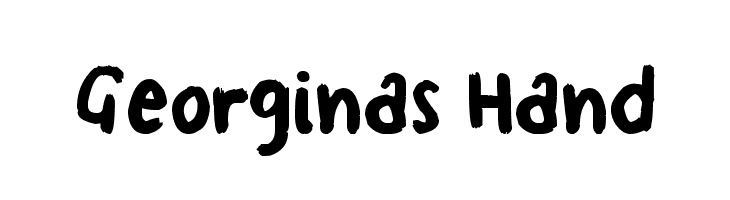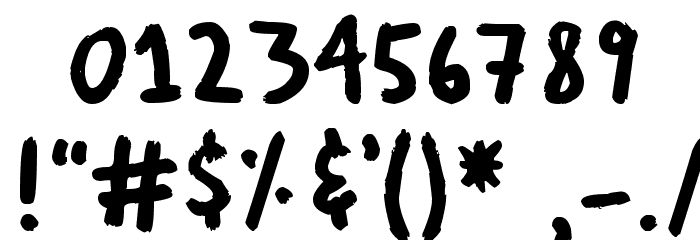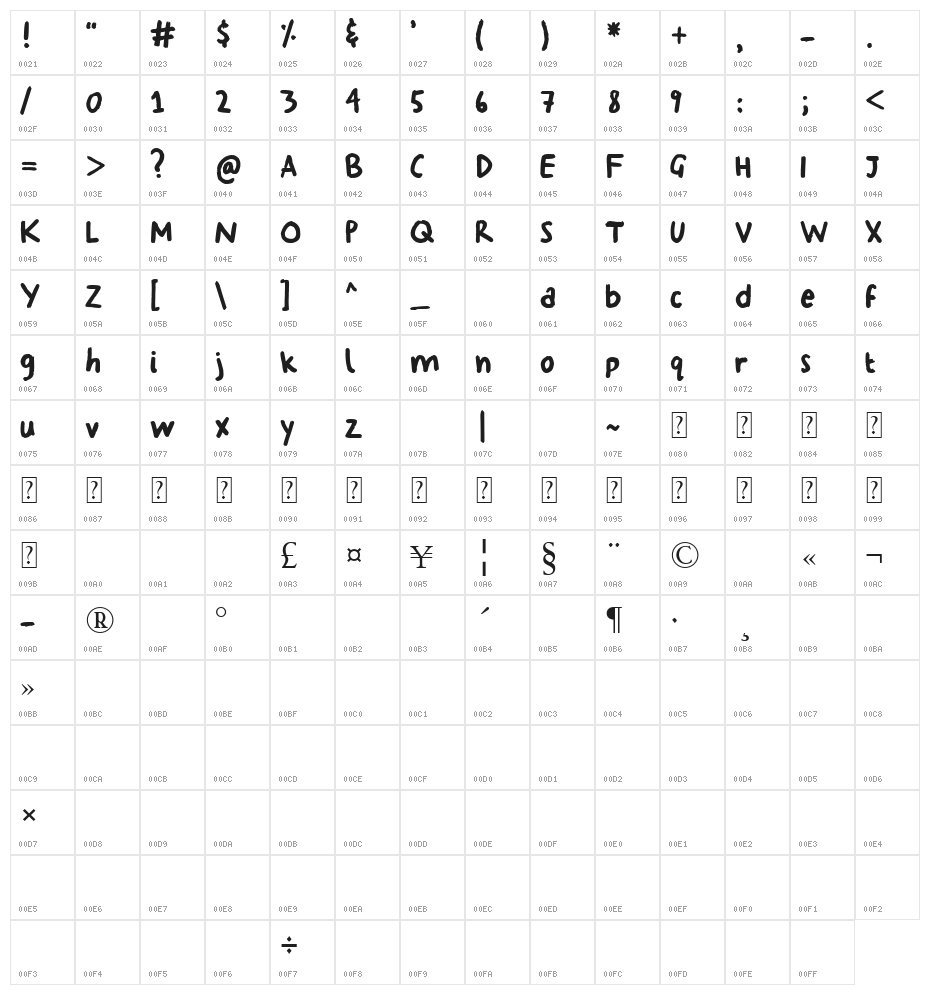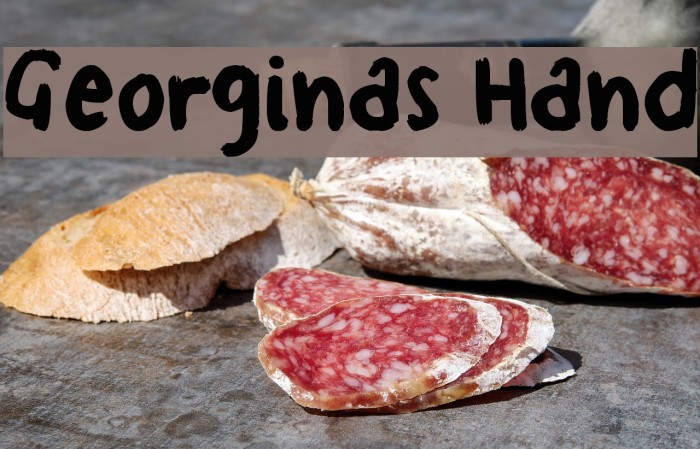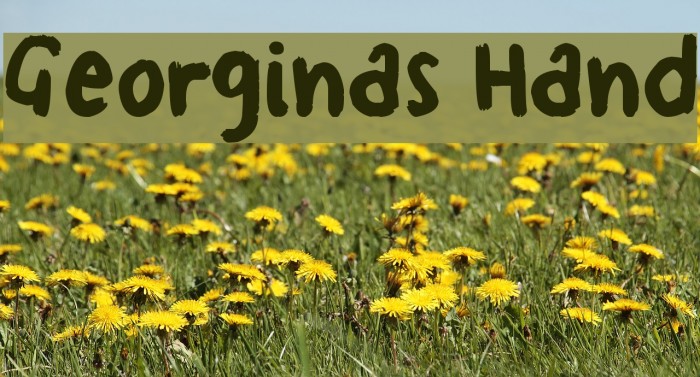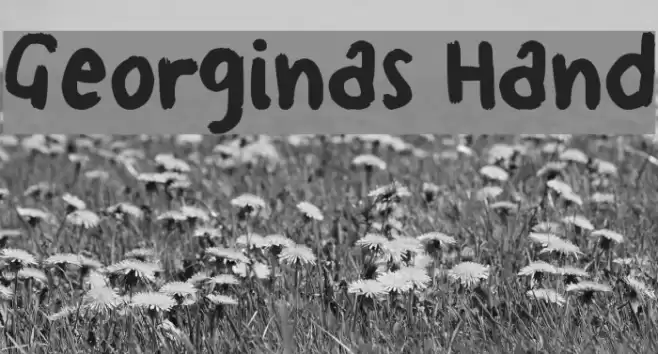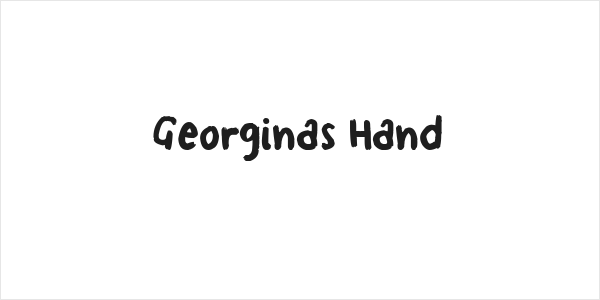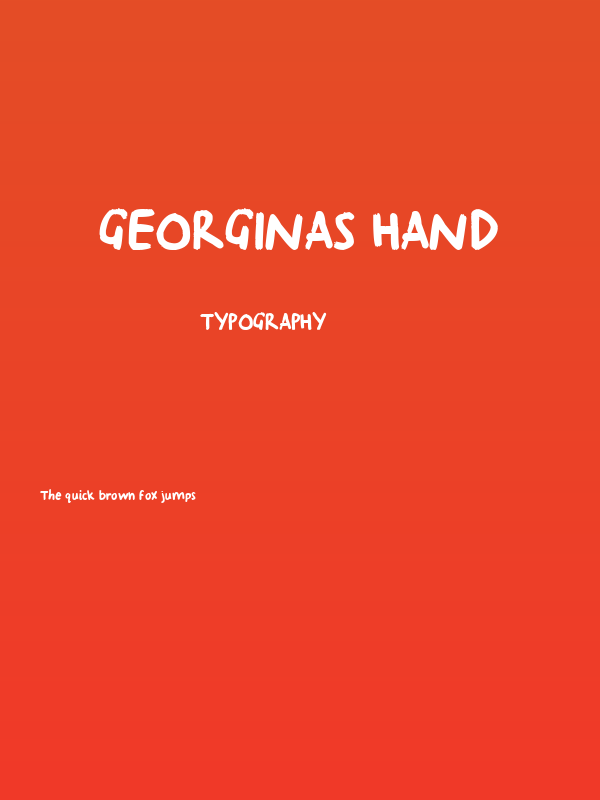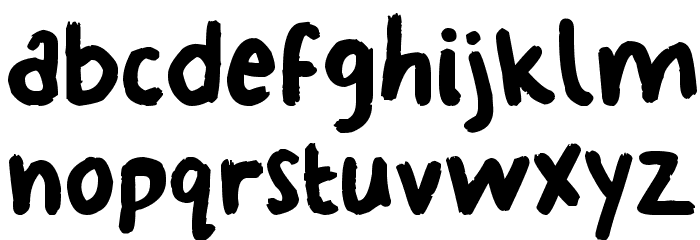
Georginas Hand Font
Georginas Hand Description
This font exudes a playful and casual handwritten style, characterized by its bold and slightly irregular strokes. The letters have a natural, organic flow, reminiscent of a marker or brush pen. Each character maintains a consistent weight, contributing to its bold appearance, while the rounded edges add a friendly and approachable feel. The uppercase and lowercase letters are well-balanced, with a slight tilt that enhances the informal vibe. The numerals and special characters follow the same stylistic approach, ensuring uniformity across the font. This font is ideal for projects that require a personal touch or a creative flair.
| Proposed Projects | Ideal for greeting cards, children's books, playful branding, and social media graphics. |